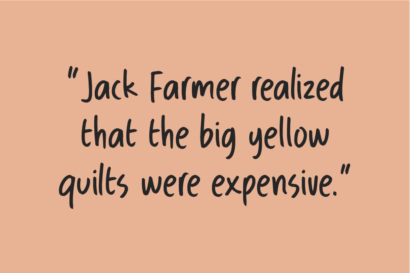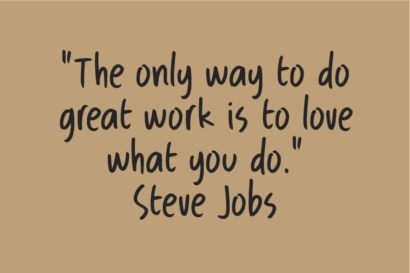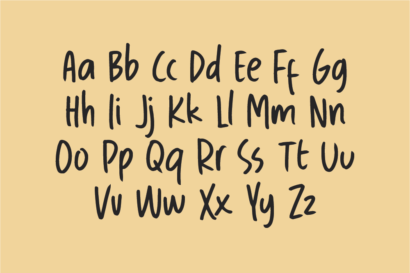
Vibrant HF
Unleash the vibrancy of your creative projects with FREE – Vibrant HF handwriting font download free. This dynamic typeface, available for free download, injects a lively and playful spirit into your designs. Perfect for various applications, from social media posts to personal projects, FREE brings a fresh and energetic handwriting style to your fingertips.
Vibrant Handwritten Font